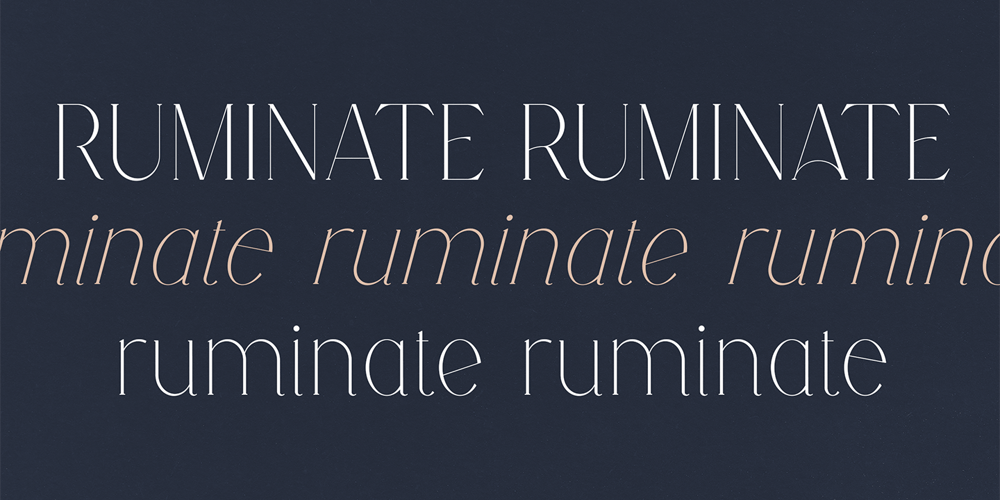
Ruminate Font Family was designed by Vladimir Fedotov, Plamen Petrov and published by VP Creative Shop. Ruminate contains 3 styles and family package options. Introducing Ruminate – serif typeface – regular and italic fontsRuminate is feminine and elegant typeface with multilingual support. It’s a very versatile font that works great in large and small sizes.This font is perfect for branding projects, home-ware designs, product packaging, magazine headers – or simply as a stylish text overlay to any background image.FEATURES Uppercase, lowercase, numeral, punctuation & Symbol 3 fonts – regulat, alternate, italic alternate glyphs Multilingual support No special software is required to type out the standard characters of the Typeface. Canva friendly Feel free to contact me if you have any questions!Mock ups and backgrounds used are not included.Thank you! Enjoy!